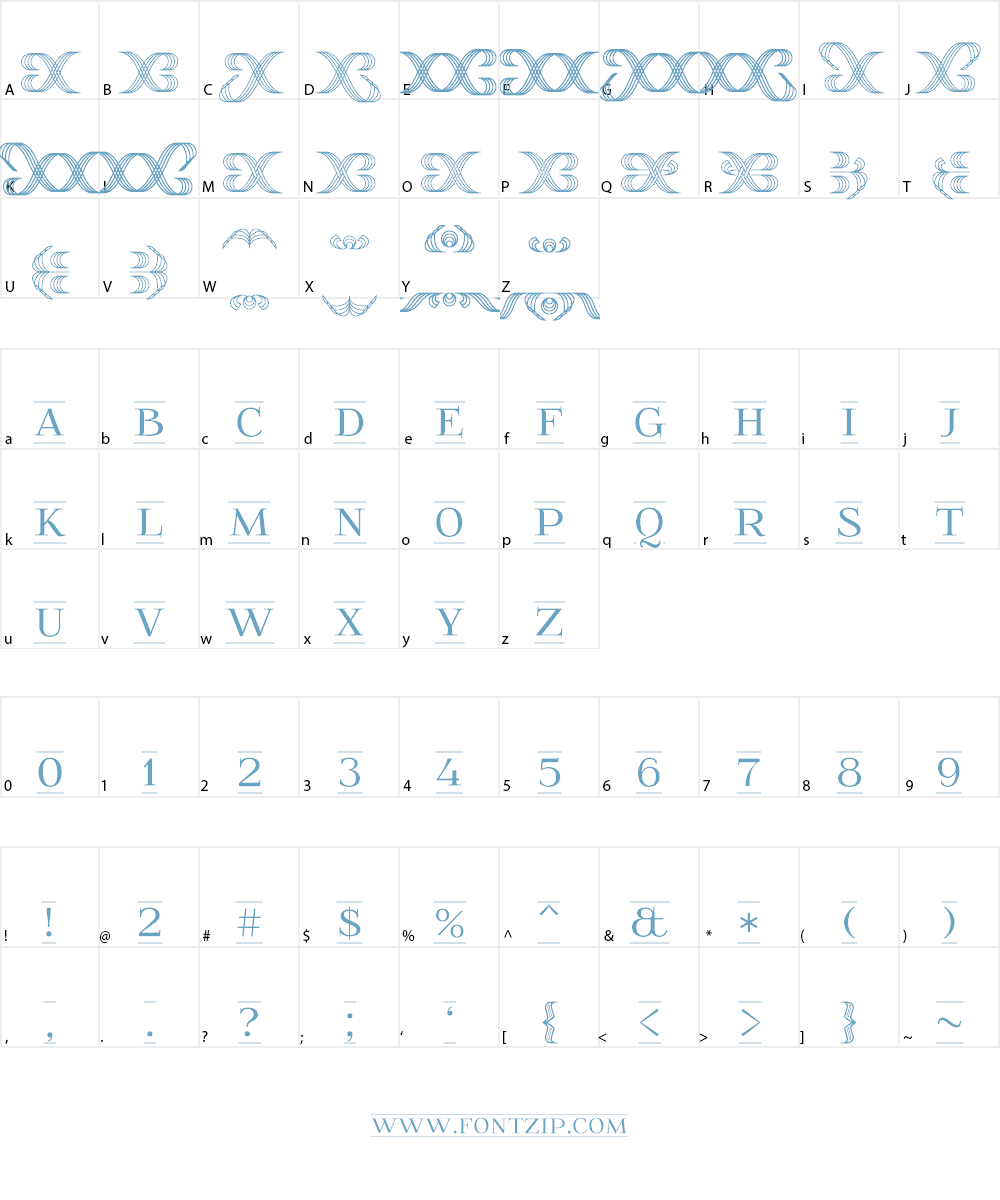
Dec­o­ra­tive Set of Frames with access direct from Keyboard, based on my font Foglihten PetiteCaps ( http://www.fontspace.com/gluk/foglihten ). See Exaples of use in FoglihtenFr02.pdf!